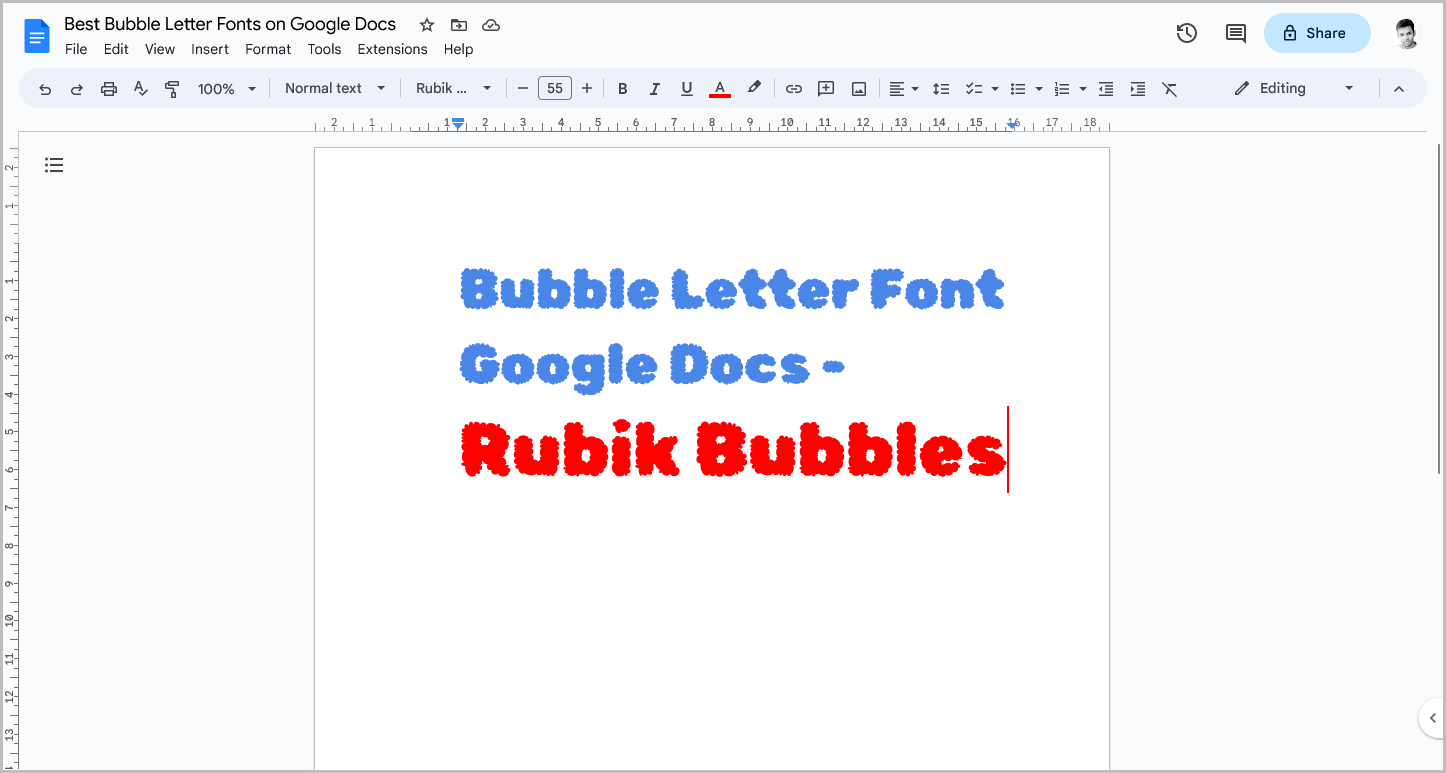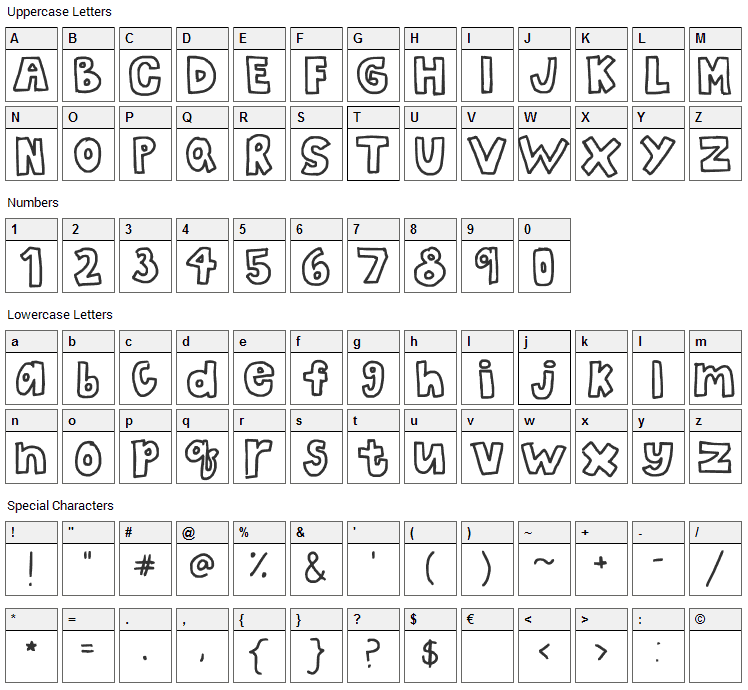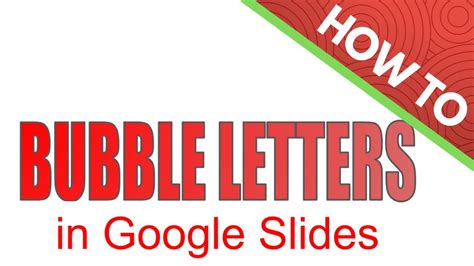
Bubble Letter Font In Google Docs
Bubble Letter Font In Google Docs - As always, the first thing you’ll want to do when trying to create a google doc is to. To use these fonts, first, open a document in google docs and type your content. Web follow the steps below to type with bubble text font in google docs like this: Web 10 bubble letter fonts on google docs modak. Open a font site such as fontspace. Web how to make bubble letters in google docs using fonts step 1: Open the google docs document where you want to add bubble text font. Web best bubble letter fonts on google docs 1. Click your existing font name on top to open the font. Introducing modak by ek type, which is not actually a bubble font but still fits the theme because of its rounded.
Web here’s how to make bubble letters in google docs using font previews from websites: As always, the first thing you’ll want to do when trying to create a google doc is to. Open a font site such as fontspace. Web best bubble letter fonts on google docs 1. Open the google docs document where you want to add bubble text font. Web 10 bubble letter fonts on google docs modak. Click on the font you’d like to use for your bubble letters in google docs. Click your existing font name on top to open the font. To use these fonts, first, open a document in google docs and type your content. Web how to make bubble letters in google docs using fonts step 1:
As always, the first thing you’ll want to do when trying to create a google doc is to. Introducing modak by ek type, which is not actually a bubble font but still fits the theme because of its rounded. Web follow the steps below to type with bubble text font in google docs like this: Click on the font you’d like to use for your bubble letters in google docs. Click your existing font name on top to open the font. Web best bubble letter fonts on google docs 1. Web here’s how to make bubble letters in google docs using font previews from websites: Open the google docs document where you want to add bubble text font. Web 10 bubble letter fonts on google docs modak. To use these fonts, first, open a document in google docs and type your content.
How To Change The Font To Bubble In Google Docs FluidAble
Web how to make bubble letters in google docs using fonts step 1: Web best bubble letter fonts on google docs 1. As always, the first thing you’ll want to do when trying to create a google doc is to. Open the google docs document where you want to add bubble text font. Introducing modak by ek type, which is.
6 Steps to Make Bubble Letters in Google Docs November 2023
Click your existing font name on top to open the font. Web 10 bubble letter fonts on google docs modak. Click on the font you’d like to use for your bubble letters in google docs. Open a font site such as fontspace. Web here’s how to make bubble letters in google docs using font previews from websites:
How to Make BUBBLE LETTERS on Google Slides [ SOLVED] YouTube
Open the google docs document where you want to add bubble text font. Web how to make bubble letters in google docs using fonts step 1: Introducing modak by ek type, which is not actually a bubble font but still fits the theme because of its rounded. To use these fonts, first, open a document in google docs and type.
Best Bubble Letter Fonts on Google Docs
Web 10 bubble letter fonts on google docs modak. To use these fonts, first, open a document in google docs and type your content. Introducing modak by ek type, which is not actually a bubble font but still fits the theme because of its rounded. Click on the font you’d like to use for your bubble letters in google docs..
Bubble letters font on google docs lazyfas
Web best bubble letter fonts on google docs 1. Click on the font you’d like to use for your bubble letters in google docs. Introducing modak by ek type, which is not actually a bubble font but still fits the theme because of its rounded. Open a font site such as fontspace. Web 10 bubble letter fonts on google docs.
How To Make Bubble Letters In Google Docs [5 Easy Ways]
Web how to make bubble letters in google docs using fonts step 1: As always, the first thing you’ll want to do when trying to create a google doc is to. Click on the font you’d like to use for your bubble letters in google docs. Web 10 bubble letter fonts on google docs modak. Click your existing font name.
Best Bubble Letter Fonts on Google Docs
Click your existing font name on top to open the font. Web here’s how to make bubble letters in google docs using font previews from websites: Web 10 bubble letter fonts on google docs modak. Web best bubble letter fonts on google docs 1. Introducing modak by ek type, which is not actually a bubble font but still fits the.
How To Create Bubble Letters In Google Docs Printable Form, Templates
Open the google docs document where you want to add bubble text font. Web best bubble letter fonts on google docs 1. Click your existing font name on top to open the font. To use these fonts, first, open a document in google docs and type your content. Introducing modak by ek type, which is not actually a bubble font.
How To Create Bubble Letters In Google Docs Printable Form, Templates
Web how to make bubble letters in google docs using fonts step 1: Open the google docs document where you want to add bubble text font. Click your existing font name on top to open the font. Web best bubble letter fonts on google docs 1. Click on the font you’d like to use for your bubble letters in google.
Bubble letters font on google docs beamulsd
Web how to make bubble letters in google docs using fonts step 1: Open a font site such as fontspace. As always, the first thing you’ll want to do when trying to create a google doc is to. Web follow the steps below to type with bubble text font in google docs like this: Web here’s how to make bubble.
Open The Google Docs Document Where You Want To Add Bubble Text Font.
Web 10 bubble letter fonts on google docs modak.